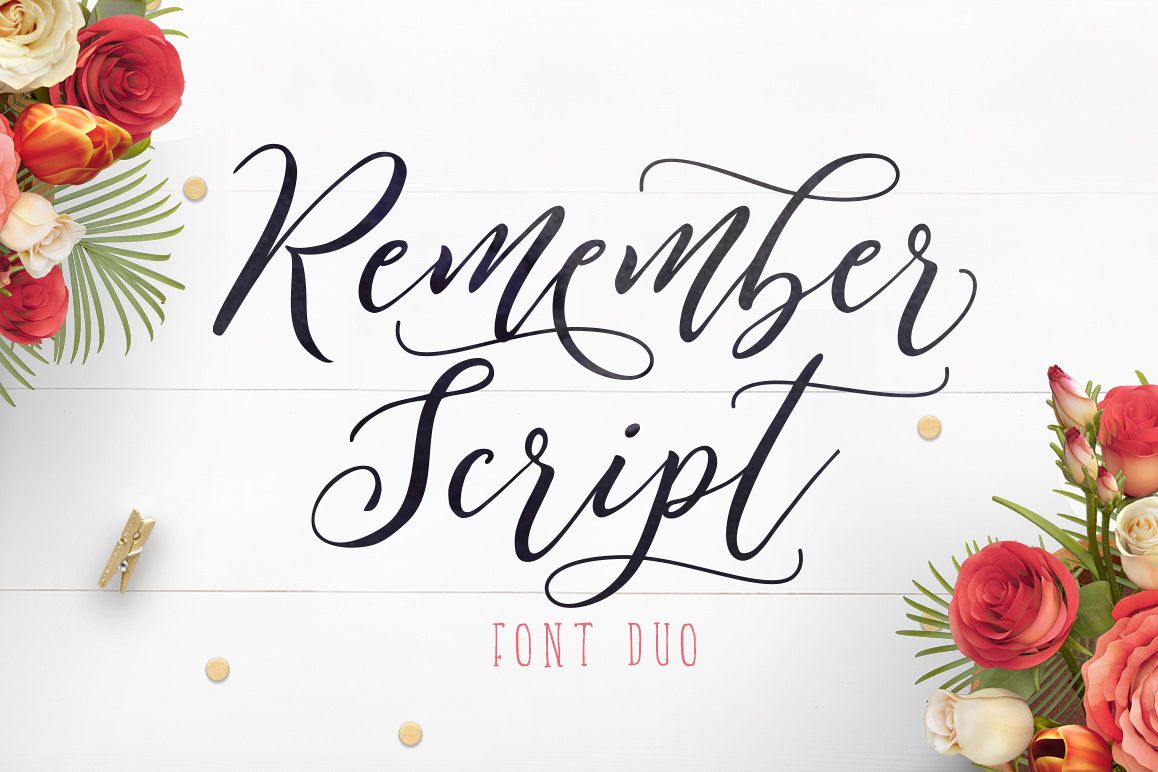
Remember Script
RememberScript-Regular
RememberTwo-Regular
Intoducing Remember Font Duo is a modern script with a sweet calligraphy-style, decorative characters and a dancing baseline! Designed to compliment each other perfectly. Together or apart the fonts are ideal for adding that real 'hand lettered' look to your designs. So beautiful on invitation like greeting cards, branding materials, business cards, quotes, posters, and more!